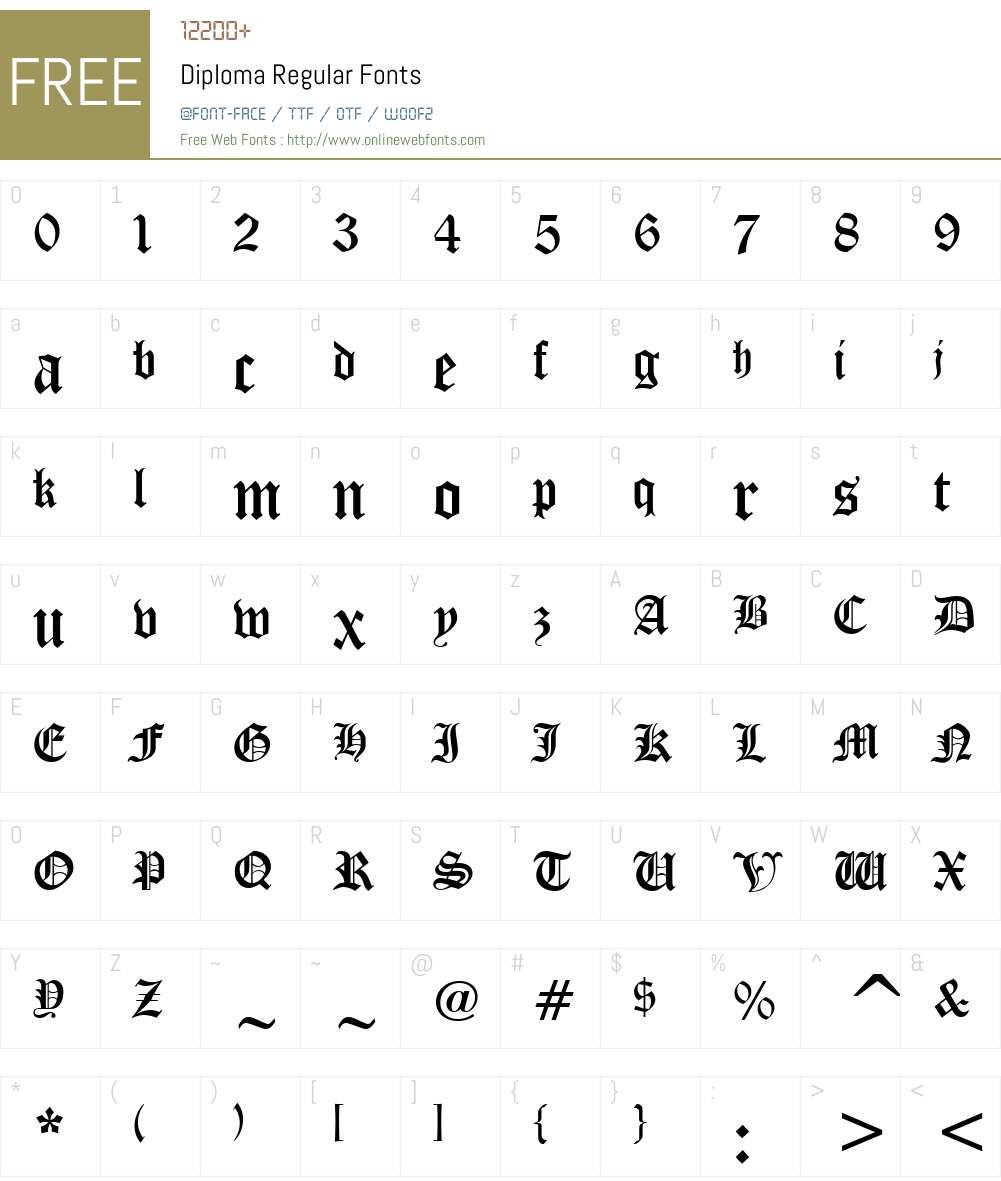
Diploma Regular Font . the diploma regular font contains 227 beautifully designed characters. Discover a world of captivating typography for your creative projects. explore diploma fonts at myfonts. Altsys fontographer 3.5 diploma regular. the diploma font type used is known as the ‘gothic’ and ‘blackletter’ styles, which have consistently been a preferred selection. Moreover, you can embed it to your website with. Customize your own preview on ffonts.net to make sure it`s the right.